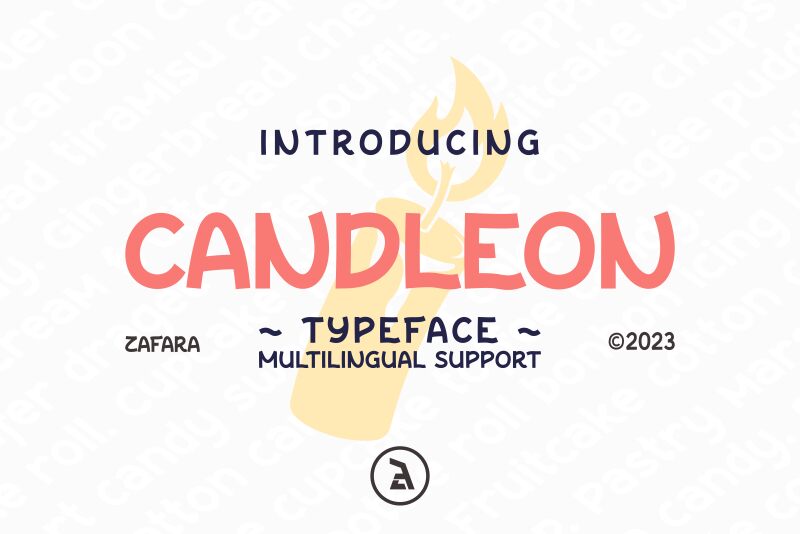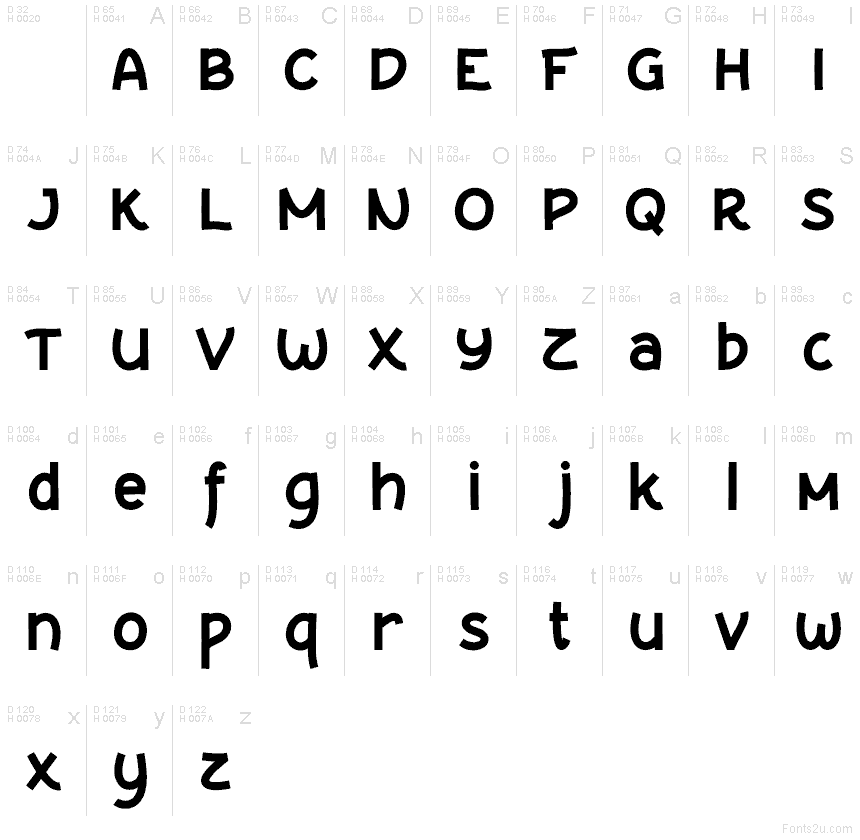
Candleon DEMO
Candleon font by Zafara Studios is a free rounded display sans typeface. Its chunky curves and softly swollen strokes feel almost waxy, giving titles a warm, buoyant presence without looking cartoonish. The spacing is steady and generous, so words lock up cleanly while still reading friendly and approachable.
Using Candleon, headlines snap into focus for packaging, food and beverage branding, kids’ products, wellness campaigns, posters, and bold social posts. That thick, inky rhythm carries at large sizes and still holds together on smaller tags or buttons. Pair this free font with a light grotesk for body text to keep the message clear while Candleon brings the charm.